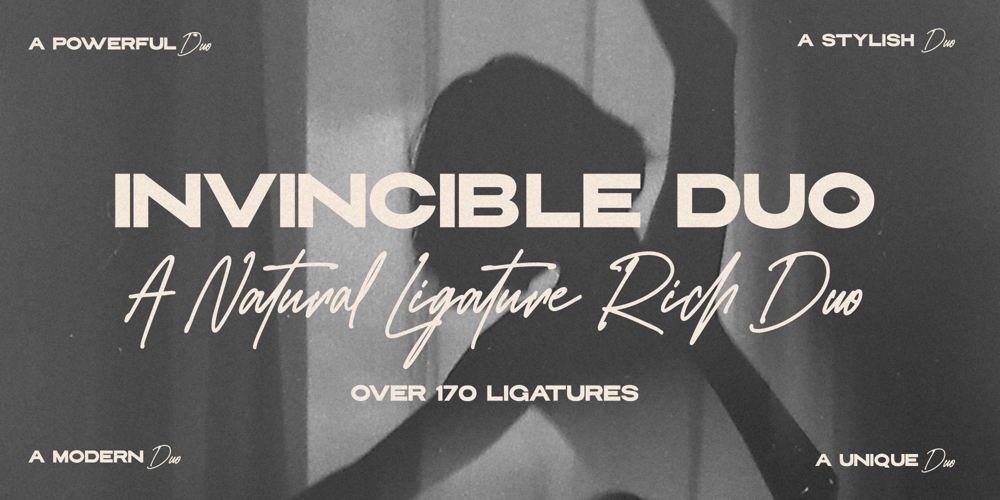
Invincible Duo Script Font Family was designed by Zak M and published by Prestige Artsy Studio. Invincible Duo Script contains 2 styles and family package options. Introducing Invincible Duo, a sleek, modern, and clean font package designed to elevate your creative projects. This dynamic duo consists of two fonts that perfectly complement each other, offering endless possibilities for your designs.The first font, a beautiful script, exudes elegance and charm. With an abundance of ligatures — over 170 ligatures, with every word becomes a work of art. Its flowing strokes and intricate details add a touch of sophistication, making it ideal for invitations, logos, branding, and other projects where a touch of beauty is desired.The second font, a bold sans, brings a contemporary edge to the table. With its clean lines and strong presence, it grabs attention and exudes confidence. Perfect for headlines, titles, and bold statements, this font adds a bold and modern touch to your designs, creating impact and visual appeal.Invincible Duo is carefully crafted to ensure seamless harmony between the script and sans font. When used together, they create a stunning visual contrast that captivates the audience. Whether combined or used individually, these fonts make a lasting impression and deliver a powerful, cohesive message.